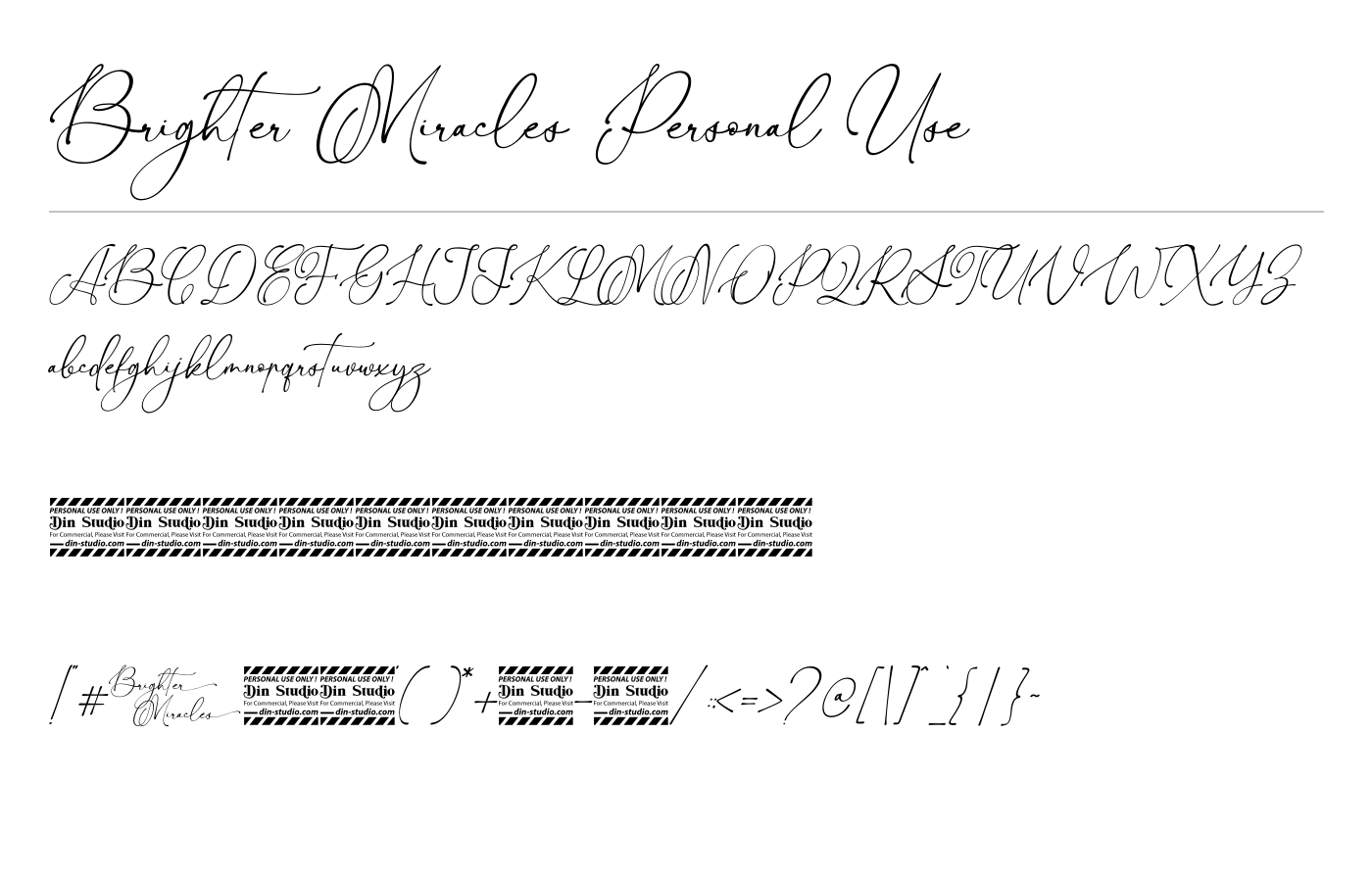
Brighter Miracles is an elegant, delicate script font characterized by its flowing, fine lines and graceful swashes that create a sophisticated handwritten feel. Its light weight and airy letterforms make it perfect for luxury branding, wedding invitations, and editorial headlines where a romantic and refined touch is desired. This font works best in designs that seek to convey elegance and personal style with a modern, artistic flair.
Brighter Miracles Personal Use Font
About Brighter Miracles Personal Use Font
| Font family | Brighter Miracles Personal Use Font |